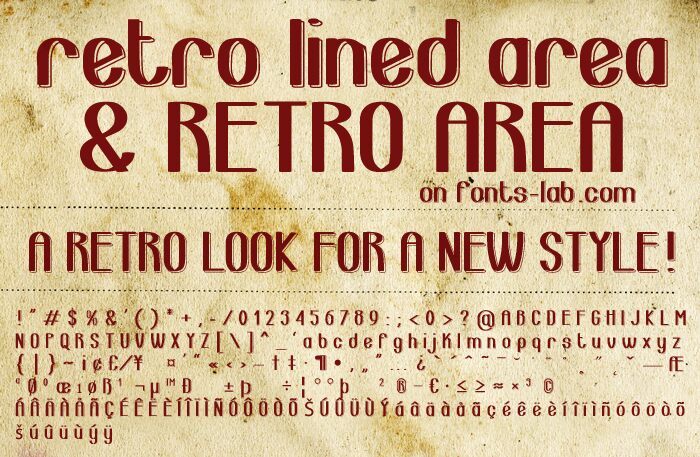
Retro Lined Area from Fonts-lab.com is a free high-contrast sans serif display font with the tall, theatrical proportions of vintage show lettering. Thick black strokes alternate with fine hairlines and open outlined sections, producing a layered dimensional effect across the capitals. Rounded forms and sharply pinched joins keep the silhouette lively rather than strictly geometric.
A poster is its most convincing setting, especially for cabaret nights, retro film events, and fashion promotions. It also suits album covers. The black-and-line treatment can echo architectural borders, stage curtains, or Art Deco illustration, letting the lettering become part of the event artwork rather than a neutral caption.